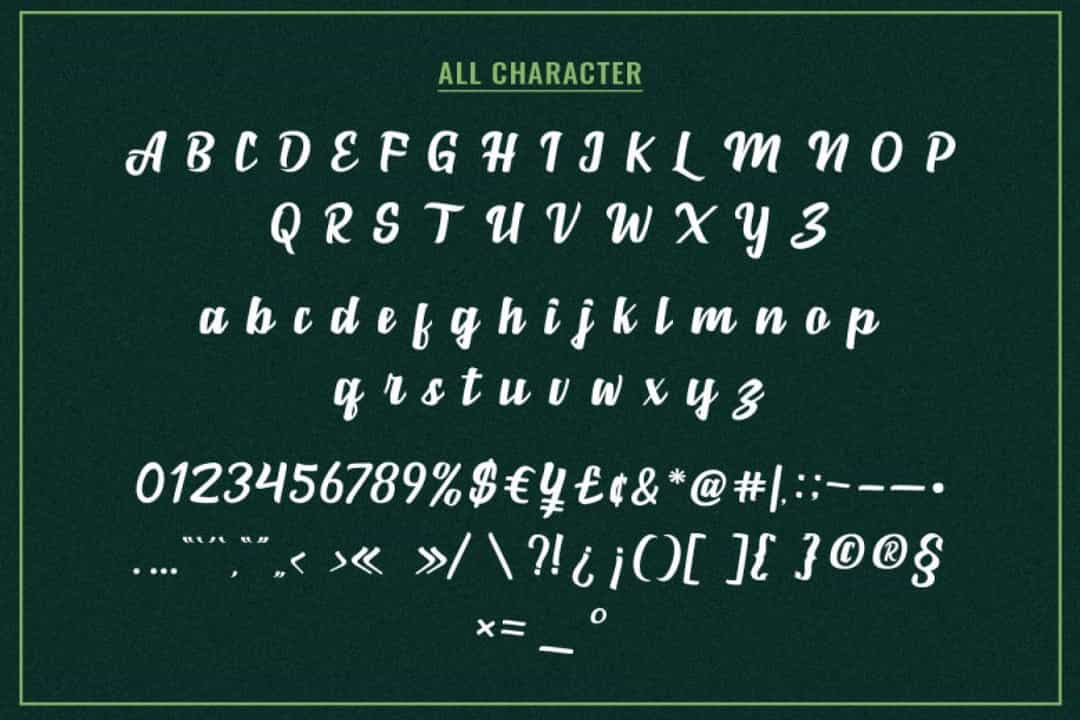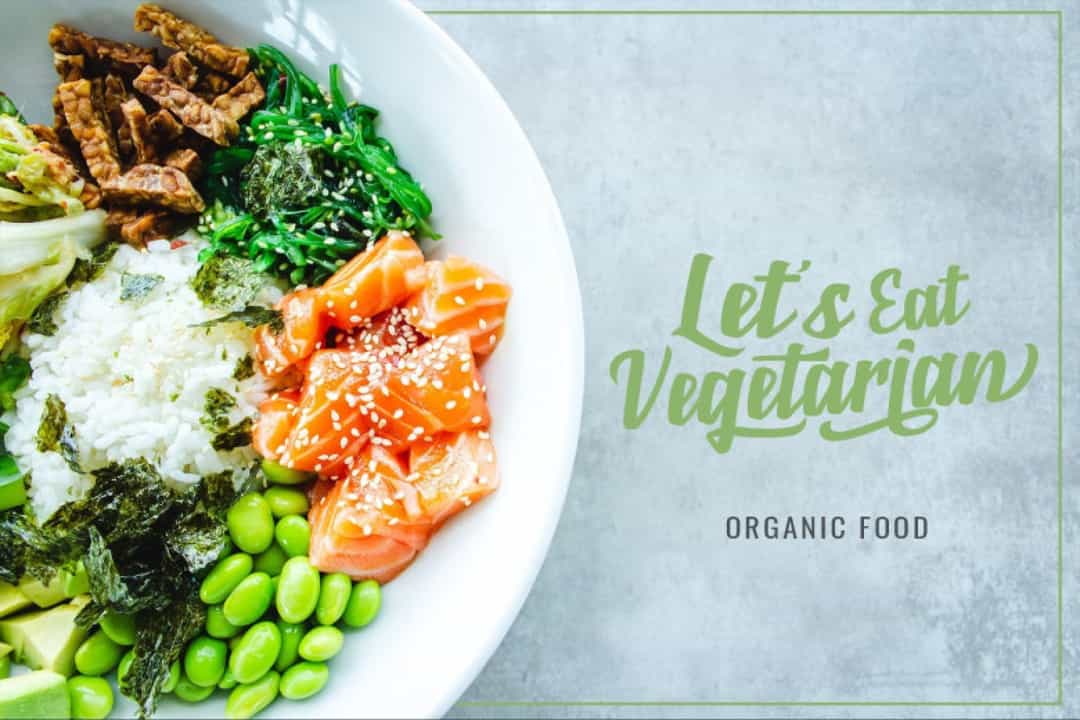
Discover Marborn Typeface, part of the Calligraphy Script Personal collection—a versatile and unique font perfect for adding a personal touch to your projects. Download it for free and enjoy crafting designs with style, from invitations to social media posts. This font is available exclusively for personal use, giving you the freedom to create without limits. Unlock your creativity with Marborn Typeface today!
Marborn is an ideal font for all your design requirements, whether it is logos, t-shirts, social media posts, thumbnails for social media or designs for mugs, Tupperware bags, and tote bags among many others.